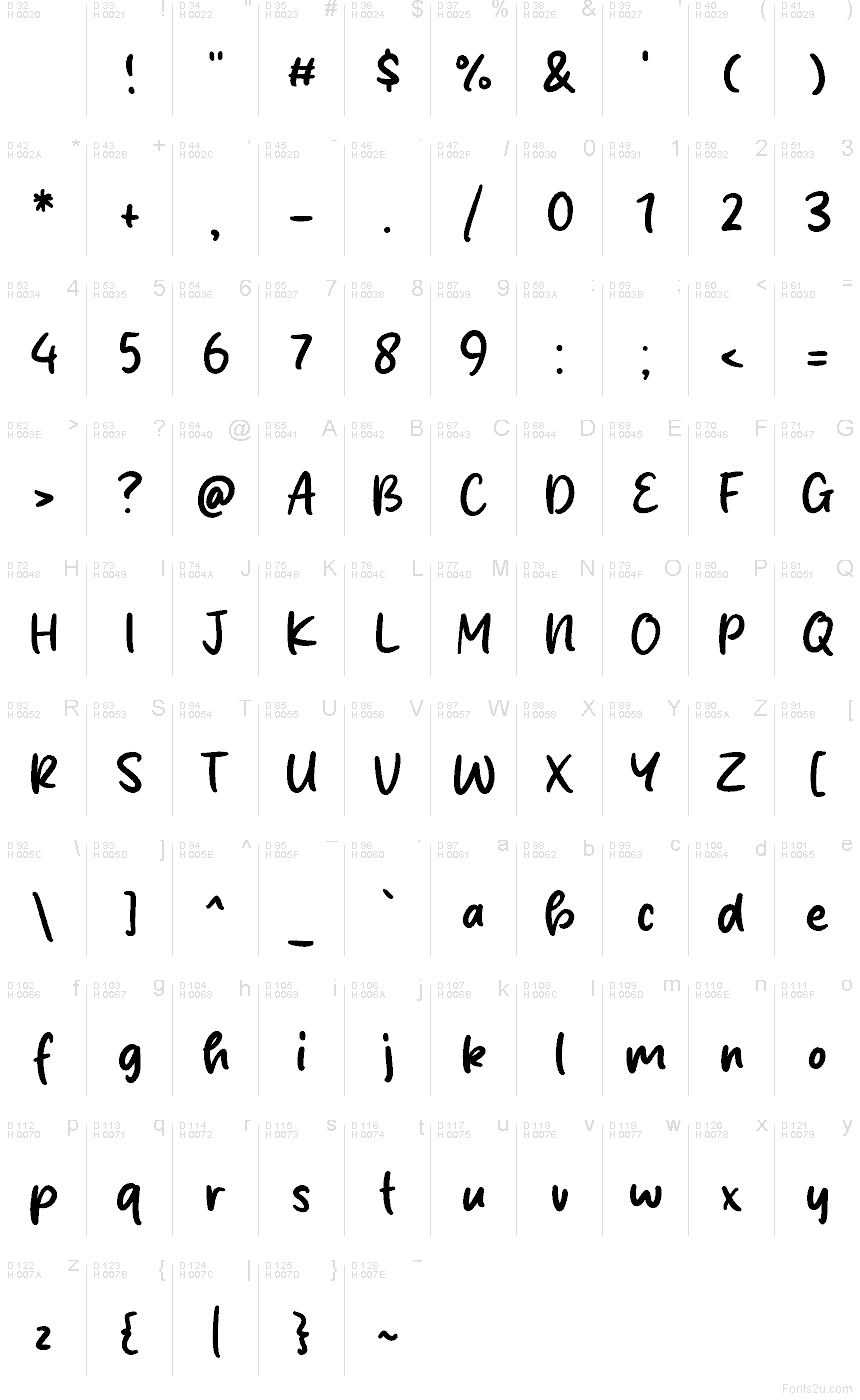
Organic Mush by MJType is a free handwritten display font with tall, springy letters and a lively uneven line. Rounded strokes swell and taper unpredictably, with narrow joins and broad loops giving the lettering a quick marker-drawn look. Several forms lean or stretch, and the irregular spacing keeps the texture personal.
As a handmade label, it can turn cafe packaging, event posters, and music merchandise into something closer to a signed note than formal typography. In playful food illustration or youth branding, its loose contours let the lettering act as a drawn graphic rather than neutral copy.